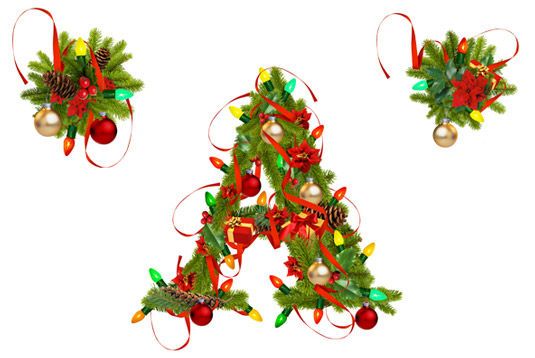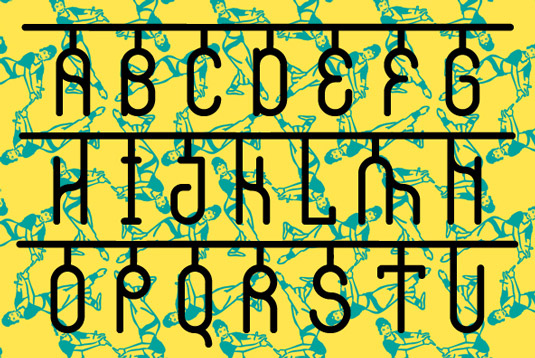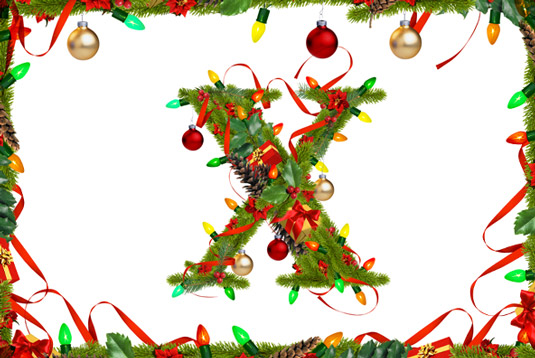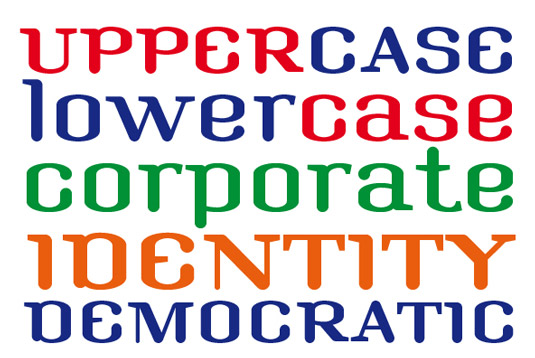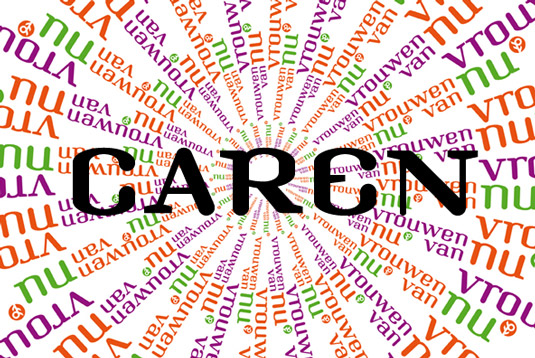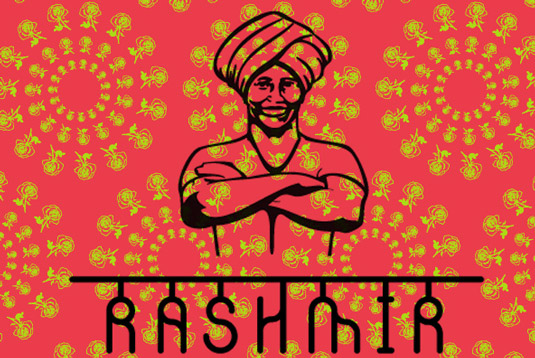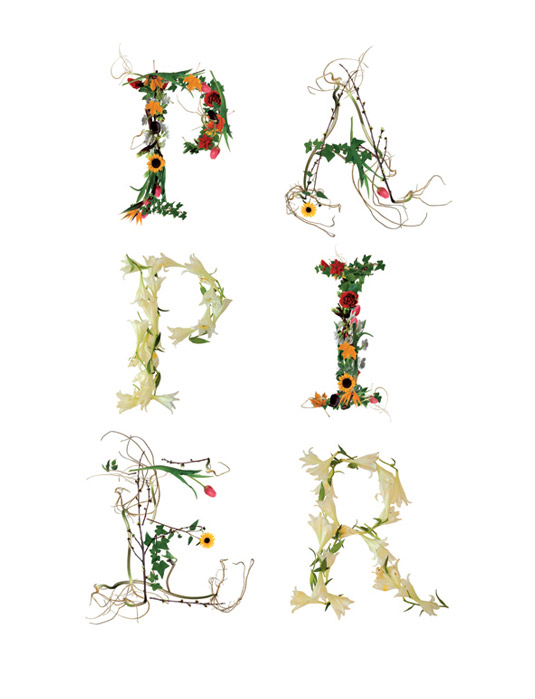
9 great examples of customized typefaces
A customized typeface can make your design sing. Check out these examples for a burst of inspiration.
A unique typeface, which is designed to the specific needs of the project, can give a website, corporate identity or packaging that special look and feel. We asked Mark van Wageningen of Type Foundry Novo Typo to talk us through nine real-world cases of unique typefaces they created for clients...
01. Caren
Caren is designed by Novo Typo in 2012 for the Dutch Women
Organization VvNU. "The typeface is the most important part of the
corporate identity," says van Wageningen. "Each of the 45,000+ members of VvNU can download the typeface and use it to create their own posters or invitations."
02. Christmas
This set of photographic characters was designed for Shinsegae, South Korea's number one department store. "In 2012, Novo Typo was asked to design this typeface for the Christmas campaign," says van Wageningen. "It was used in all Shinsegae department stores in South Korea, with the in-house design team of Shinsegae creating all the final artwork."
03. Rashmir
This typeface was created for Rashmir, an Indian/Dutch company
which produces hand-crafted notebooks and paper stationary in a
ecological friendly and fair-trade way. "The brief was to create a
Latin alphabet that illustrates the Indian roots of the company," explains van Wageningen.
04. Pure - Lily - Fall
These original characters were designed for an eco-friendly printing company in The Netherlands. "This company wanted to show, in a beautiful and stylish way, how much they care about nature and the
environment," explains van Wageningen. "Novo Typo created three floral typefaces which were printed on large posters and send to clients and relations of the printing company."